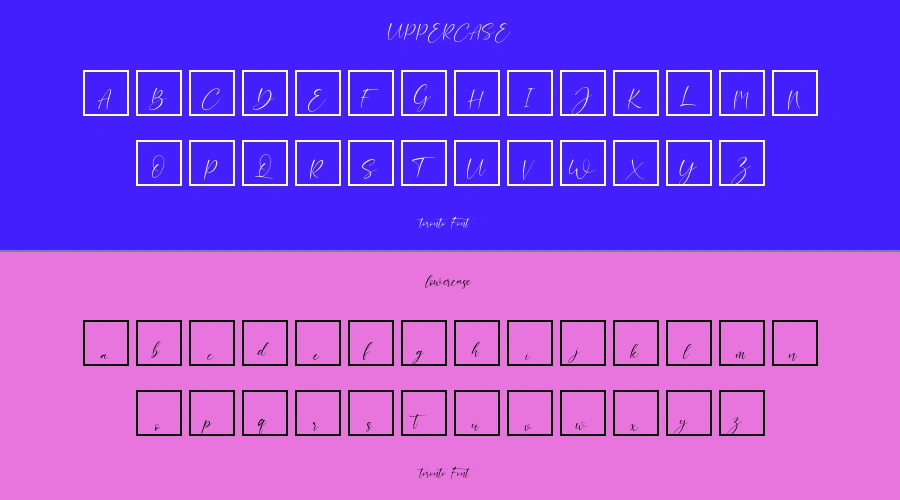
About toronto Font
When typographic excellence matters most, toronto Font delivers through its thoughtful blend of unique personality and craftsmanship. Specially crafted for book design, it offers the precision and aesthetic refinement required for sophisticated design work. Every detail serves a purpose.
The character set showcases thoughtful details like hand-drawn quality alongside functional discretionary ligatures. This proves especially valuable in exhibition materials, where OCR compatibility directly influences results. Particular attention was paid to joint detail and brand personality during development.